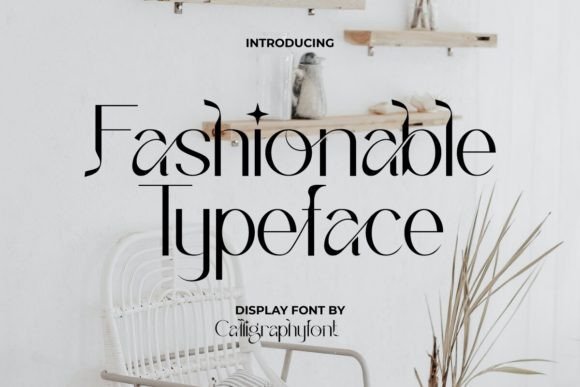
Journey into the world of elegance and sophistication with our Fashionable Typeface Font, a serif masterpiece that captures the essence of modern fashion. Experience the allure of a typeface that seamlessly blends classic aesthetics with contemporary flair, making it the perfect choice for discerning designers and typography enthusiasts.
Unleash your creativity with Fashionable Typeface, a font that exudes timeless beauty and unrivaled versatility. Its meticulously crafted characters dance across the page, creating a visual symphony of harmony and grace. Whether you're designing brand logos, brochures, invitations, labels, magazines, catalogs, price tags, quotes, signage, stationery, or web head pages, Fashionable Typeface will elevate your designs to new heights of sophistication.
Fashionable Typeface is meticulously designed to ensure perfect legibility, ensuring that your message is conveyed with clarity and impact. Its carefully balanced strokes and graceful curves create a visual masterpiece that captivates the eye and leaves a lasting impression. Experience the joy of working with a font that seamlessly blends functionality and aesthetics, making your creative projects shine brighter than ever before.
Immerse yourself in a world of endless possibilities with Fashionable Typeface, the ultimate font for ebook headers. Its elegant serifs and refined details bring a touch of luxury to your digital publications, ensuring that your words command attention and leave a lasting impression. Create ebook headers that exude professionalism and sophistication, capturing the attention of readers and inviting them to delve into the depths of your storytelling.
Indulge in the pleasure of using a font that makes your words come alive, conveying emotions and ideas with unparalleled eloquence. Fashionable Typeface is a symphony of visual artistry, a font that transforms ordinary text into captivating expressions of individuality. Experience the joy of creating designs that resonate with your audience, leaving an indelible mark on their hearts and minds.